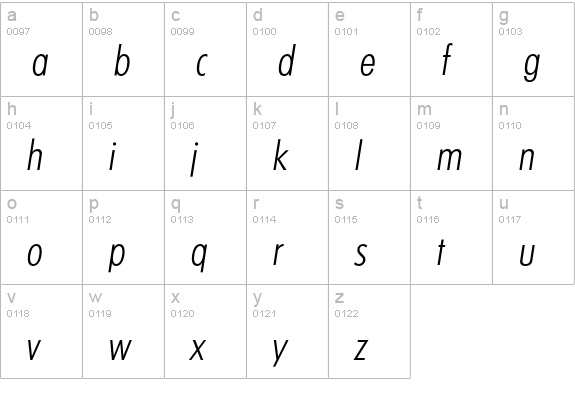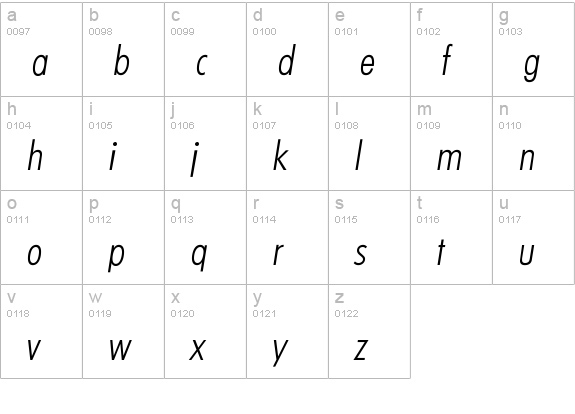
Limerick-LightCondIta Font Details
Limerick-LightCondIta is a sleek and elegant condensed italic font that exudes sophistication and style. With its modern and refined design, this typeface is perfect for adding a touch of class to any project. Whether you're designing a logo, creating invitations, or crafting a professional document, Limerick-LightCondIta is sure to make a statement. And the best part? This stunning font is available for free download at FontsMarket.com! That's right, you can easily access this high-quality typeface without any cost. So go ahead and elevate your designs with the timeless beauty of Limerick-LightCondIta - your next project will thank you.